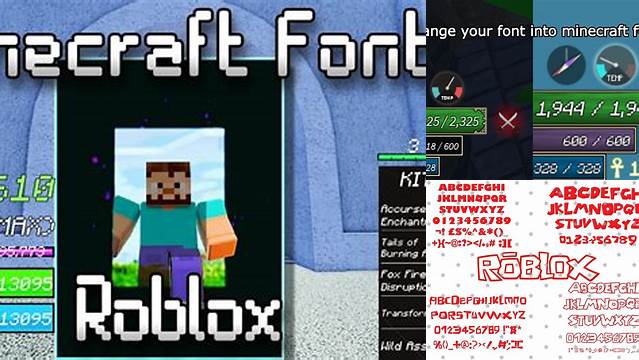
Fonts In Roblox & Minecraft: A Gamer's Guide
Fonts in Roblox and Minecraft: A Comprehensive Guide
Understanding Fonts and Their Significance
Hey everyone, let's dive into the fascinating world of fonts, specifically how they play a crucial role in two of the biggest gaming platforms out there: Roblox and Minecraft. You might not realize it, but fonts are way more important than just the text you read. They're a fundamental part of how we experience and interact with the digital world, adding personality, readability, and a whole lot of style. Think about it; without fonts, everything would just be a bunch of plain, boring characters. Fonts help us create an atmosphere that enhances the user experience.
Roblox and Minecraft, both incredibly popular with players of all ages, leverage fonts in unique ways. In Roblox, where user-generated content is king, fonts are a vital tool for creators looking to customize their games and make them stand out. Think about the game titles, the in-game instructions, the chat bubbles – all of it is influenced by the fonts used. Choosing the right font can make or break the overall feel of a game. Imagine playing a horror game with a playful, bubbly font. It just wouldn't work, right? The font needs to align with the game's theme.
On the other hand, Minecraft leans towards a more blocky, pixelated aesthetic, which is inherently tied to its font choices. The default font is designed to perfectly complement the game's visual style, ensuring that text elements blend seamlessly with the environment. This is really important because the whole charm of Minecraft is its pixelated world. However, even within Minecraft, you can find custom fonts that players use to personalize their game. These custom fonts can be used for everything from crafting tutorials to server announcements, allowing players to express their creativity and create a unique experience. Therefore, fonts add a layer of personalization and customization to both games, and they play a significant role in the game's overall appeal. Fonts are more than just letters. They are a way to enhance the gaming experience and make it more enjoyable for the players.
Default Fonts in Roblox and Minecraft
Let's get into the nitty-gritty of the fonts used in Roblox and Minecraft. First off, in Roblox, the default font is called Source Sans Pro. It's a clean, sans-serif font that's designed for readability, perfect for the diverse range of games and applications found within the platform. This font is super versatile, meaning it can be used for almost anything and still look good. It’s used across the platform. It’s in the menu, in chat, and in the game descriptions. This makes sure that the game is consistent and easy to read.
Minecraft, on the other hand, has a more distinct font. The default font is a pixelated font that perfectly matches the game's blocky aesthetic. It's designed to integrate seamlessly with the game's visuals, giving the game its iconic look and feel. This pixel font has a unique charm, giving the game its distinct identity. In the game, the font is everywhere, from the inventory screens to the chat windows, making sure that the game has a cohesive look and feel. The default fonts play a very important role in establishing the game's unique visual style. They also have a direct impact on how readable and accessible the game is for the players. That is why the designers of these fonts pay very close attention.
However, the amazing thing about both Roblox and Minecraft is that they allow for customization of these default fonts. This is really where the fun begins.
Custom Fonts and How to Implement Them
Adding custom fonts really is all about enhancing the overall experience. However, when you are working on your font, make sure it is readable and aligns with your game's theme. This is super important for making sure players enjoy their time and can easily understand everything. Remember, the best font is one that complements the game's visual style and enhances the overall experience.
Font Styles and Their Impact
Let's talk about how different font styles can change the feel of a game. Think about the difference between a bold, heavy font and a light, delicate one. The choice can greatly affect how players perceive your game. In Roblox, you can use a wide variety of font styles. You can adjust the weight, size, and color of the font. For example, a bold font may be used for titles and important messages to grab the player's attention. If the game is more calm or elegant, you might want to use a lighter font style. You can customize these styles to match the game’s overall theme and create the atmosphere you want.
In Minecraft, even though the default font is more restrictive, you still have some control. Through resource packs and modding, you can introduce different styles. Imagine a fantasy-themed server using a font with a medieval-inspired look. A horror map might use a font that feels scary and unsettling. Therefore, in both games, the choice of font style can dramatically change the feel of the game. The font style must be a very important consideration when designing a game, as it is something that the players always see.
So, to wrap things up, fonts are an important part of both Roblox and Minecraft. They enhance the user experience and help bring games to life. From the default fonts to the custom ones, the choice of a font has a significant impact on how players perceive and interact with the games. Understanding the importance of fonts and learning how to use them effectively can take your game to the next level. So go ahead, experiment with fonts, and see how you can use them to create amazing gaming experiences. Have fun!